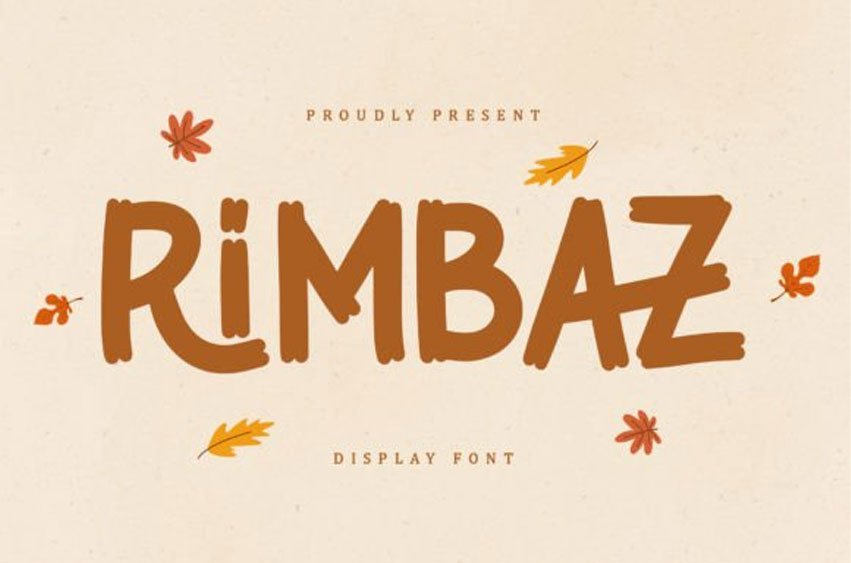
Rimbaz Font
Rimbaz Font is a bold and eye-catching display font. It has thick, creative letters that are perfect for grabbing attention.
This font works great for titles, posters, and logos, adding a modern and fun touch to designs.